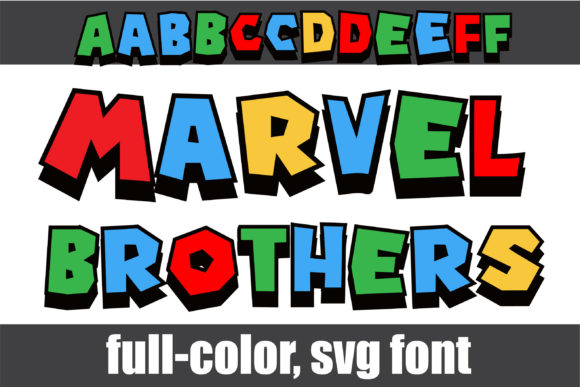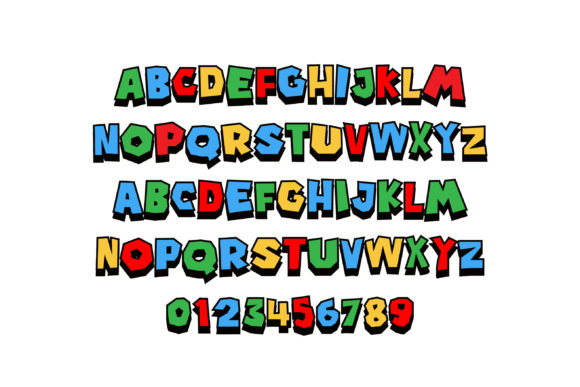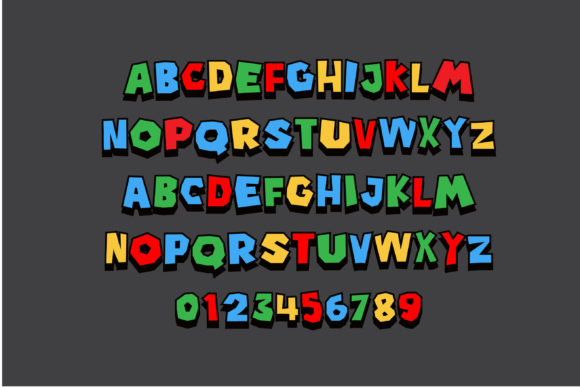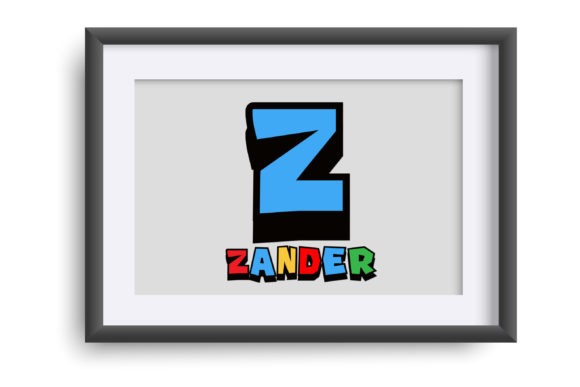
Marvel Brothers Font: A Playful & Bold Block Letter Font!
About the Marvel Brothers Font
Welcome to the world of Marvel Brothers Font, a typeface that will inspire your next great project. This full-color font features blocky, primary-colored lettering with black shadows. There is a second upper and lower alt case you can access through your system’s character map.
Marvel Brothers Font is ideally suited for headlines, logos, and short, impactful text in playful branding projects or children’s products. Its bold, cartoonish nature makes it unsuitable for body text or lengthy passages; readability suffers at smaller sizes. Avoid using it in user interfaces or situations requiring high legibility.
This font’s playful, energetic personality pairs well with clean sans-serif fonts like Montserrat or Open Sans for a balanced contrast. For a more retro feel, consider pairing it with a geometric sans-serif such as Bebas Neue. Avoid pairing it with other highly decorative or overly stylistic fonts, as this can create visual clutter.
The font’s core personality is undeniably bold and playful. It evokes a sense of fun and approachability, making it a strong choice for brands targeting younger audiences or conveying a sense of youthful energy.